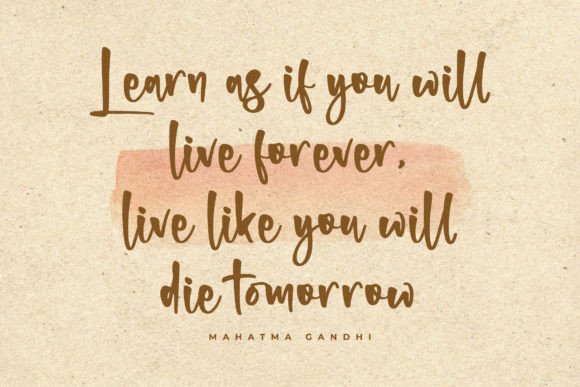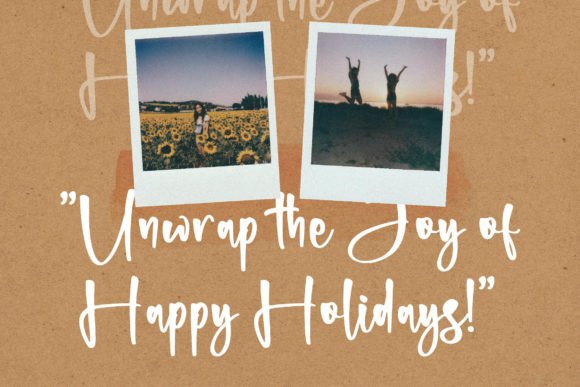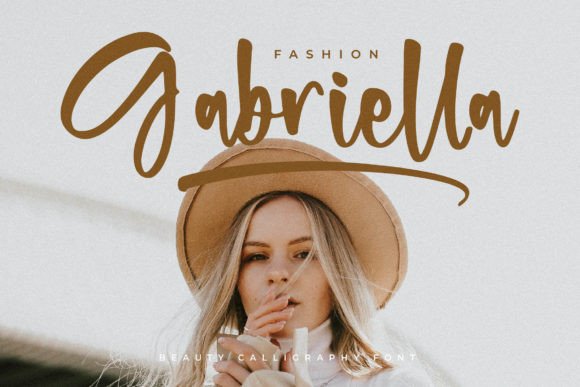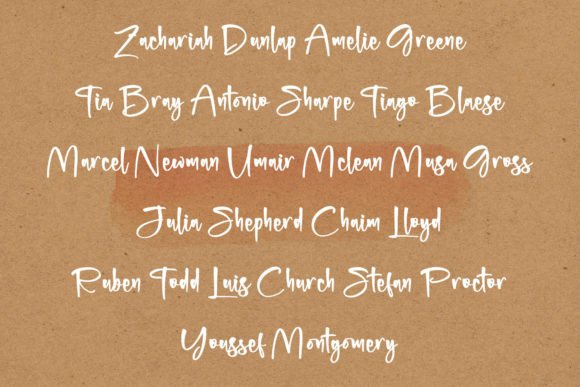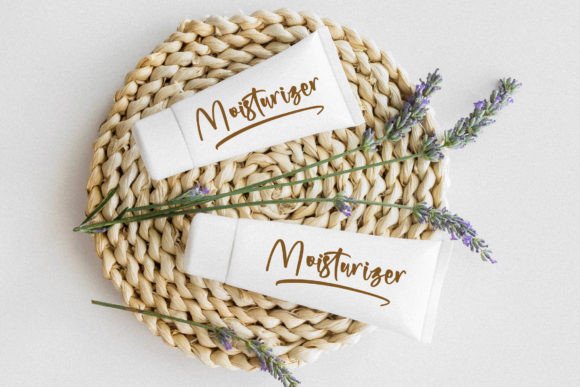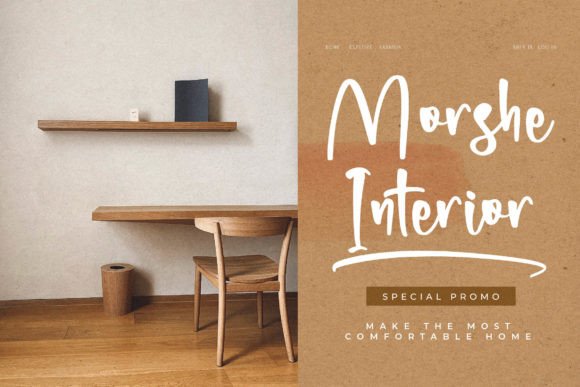
Introduction to Rostarllin Font
Have you ever found yourself staring at a blank canvas, searching for the perfect font to bring your creative project to life? The struggle is real, especially when you’re working on a design that requires elegance and sophistication. That’s where the Rostarllin Font comes in – a stunning calligraphy font that’s sure to elevate your work to the next level.
As a designer, you know the importance of having high-quality design resources at your fingertips. The Rostarllin Font is a valuable addition to any design arsenal, offering a wide range of creative possibilities for logos, branding projects, and more. With its transparent background, you can easily integrate it into your designs without any hassle.
Key Features of Rostarllin Font
- Rostarllin Font is a high-quality design resource ideal for creative projects, offering a unique and stylish aesthetic.
- The Rostarllin Font features a transparent background, allowing for seamless integration into any design without visual clutter.
- With a high-resolution design, this font is suitable for both print and digital applications, ensuring crisp and clear typography.
- Rostarllin Font is designed with versatility in mind, making it an excellent choice for a wide range of creative projects, from logos to typography-based designs.
- Rostarllin Font is a valuable design resource for anyone looking to add a touch of elegance and sophistication to their creative project.
Honest Review: Rostarllin Font
As a designer, I’m always on the lookout for high-quality fonts to elevate my creative projects. Recently, I stumbled upon the Rostarllin Font, and I’m excited to share my honest review with you.
Here are the things that work well for me: ✨ Unique design: The Rostarllin Font has a distinct, hand-crafted feel that sets it apart from other fonts. It’s perfect for adding a touch of personality to your design. ✨ High-quality vector files: The font is available in high-resolution vector formats, making it ideal for large-scale designs. ✨ Transparent background: This feature allows for seamless integration with your design elements, giving you more creative control.
However, there are a few limitations to consider: ⚠️ Limited language support: The Rostarllin Font primarily supports Latin-based languages, which may not be suitable for multilingual projects. ⚠️ Limited font styles: While the font has a unique design, it’s not available in a wide range of styles or weights.
Overall, I think the Rostarllin Font is a solid addition to any designer’s toolkit. It’s a great resource for creative projects that require a distinctive, high-quality font. If you’re looking for a free download, I recommend checking it out.